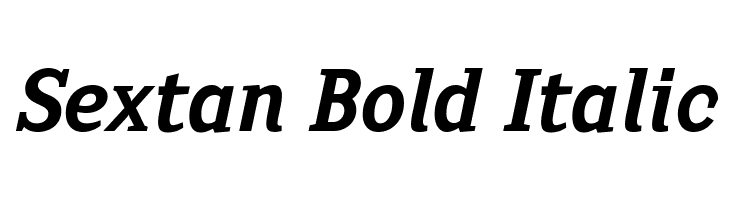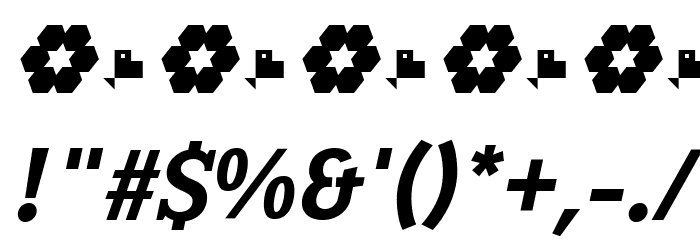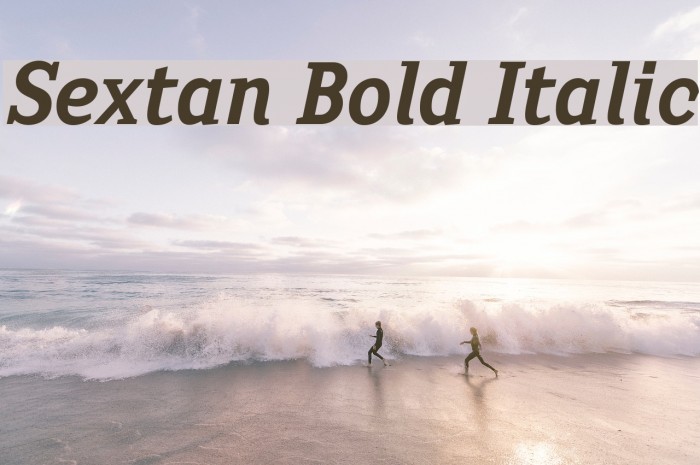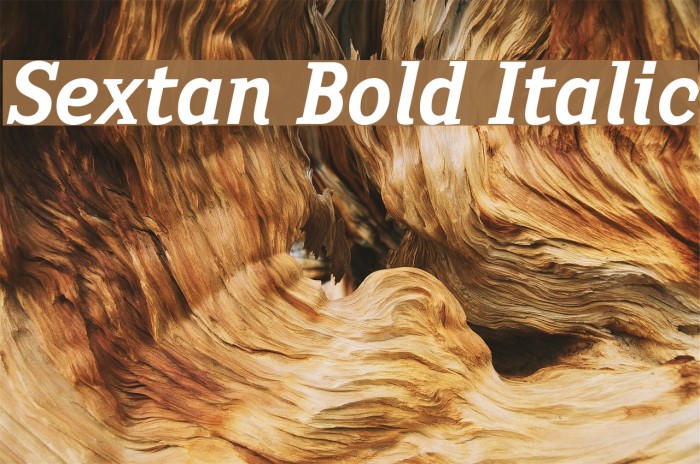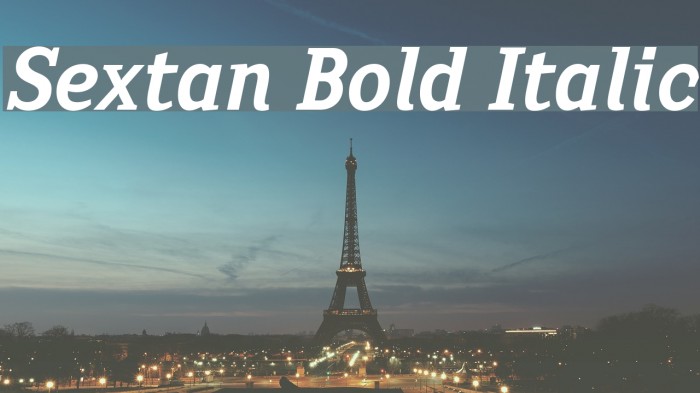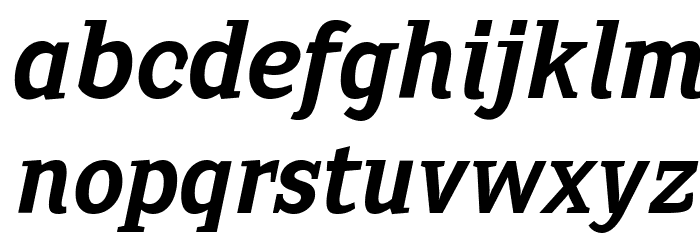
Sextan Bold Italic Font
Sextan Bold Italic Description
This font exhibits a bold and italicized style, characterized by strong, confident strokes and a slight slant that adds a dynamic feel. The uppercase letters are robust and commanding, while the lowercase letters maintain a consistent weight, ensuring readability. The numbers are clear and distinct, matching the boldness of the alphabetic characters. Special characters are well-defined, complementing the overall aesthetic. The font's design is modern yet classic, making it versatile for various applications.
A bold, italicized font with strong, dynamic strokes and a modern classic appeal from Uncategorized fonts.
- Proposed Projects: Ideal for branding, headlines, posters, and any project requiring a bold, impactful statement.
- Overall Style: Modern Classic